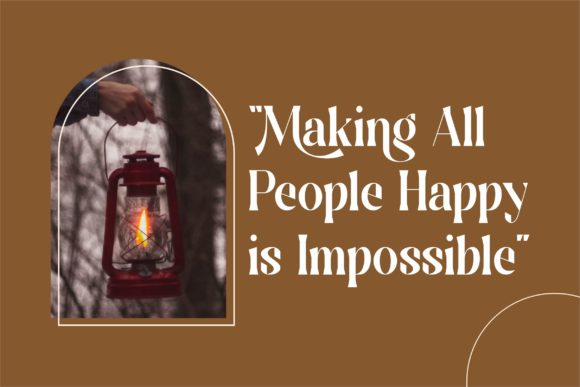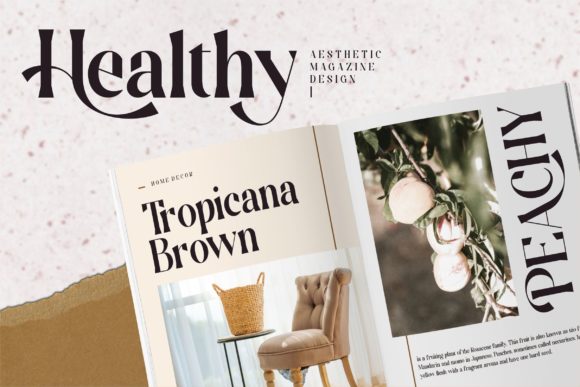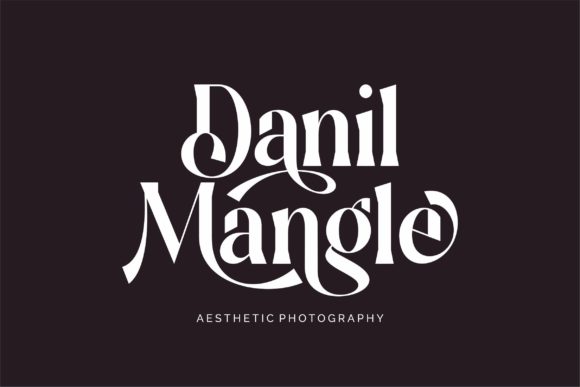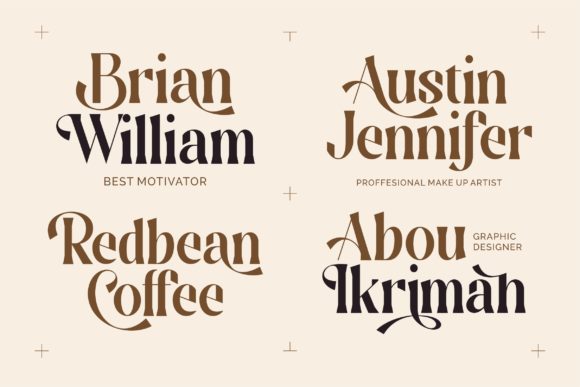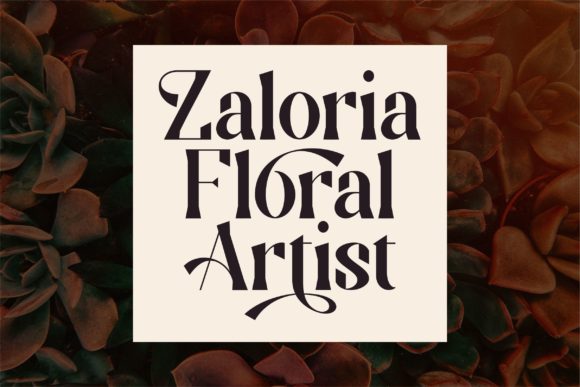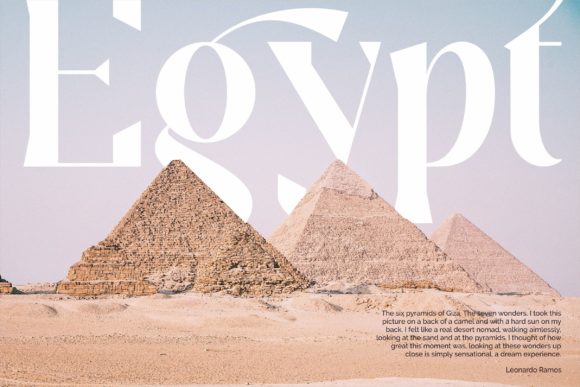
Introduction to Jungle Mask Font
Jungle Mask is a modern and exquisite display font.
This font is PUA encoded which means you can access all of the glyphs and swashes with ease Fall in love with its incredibly versatile style and use it to create spectacular designs.
Key Features of Jungle Mask Font
Why Choose Jungle Mask Font?
Jungle Mask Font offers exceptional quality and versatility, making it a valuable addition to your design toolkit. Whether you’re creating for personal projects or commercial use, Jungle Mask Font delivers professional results.